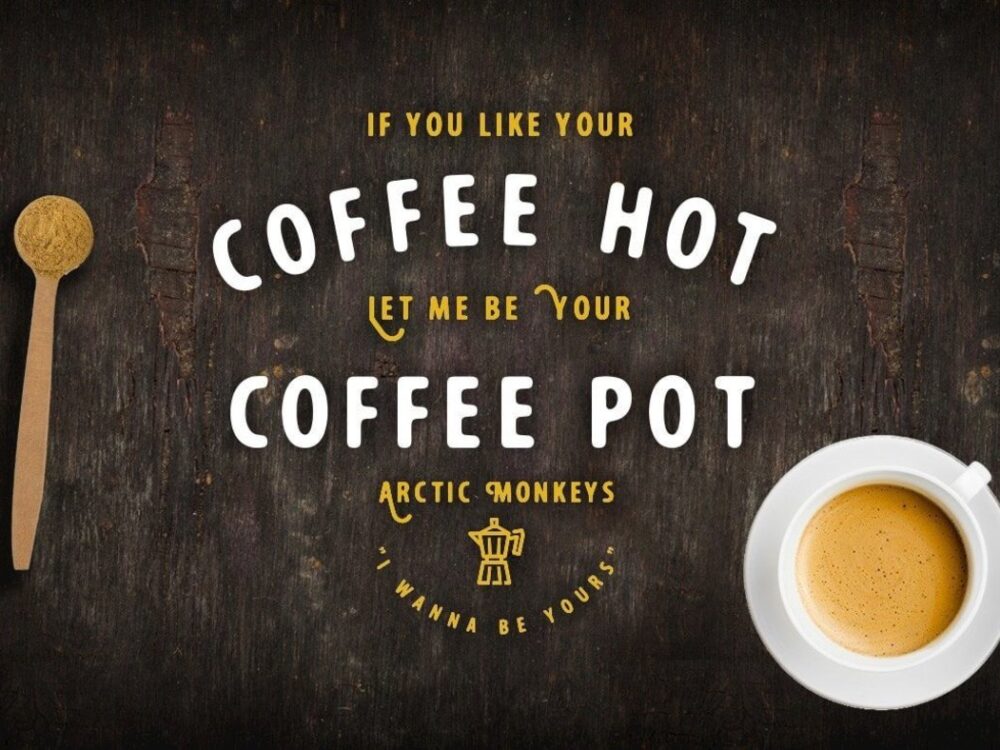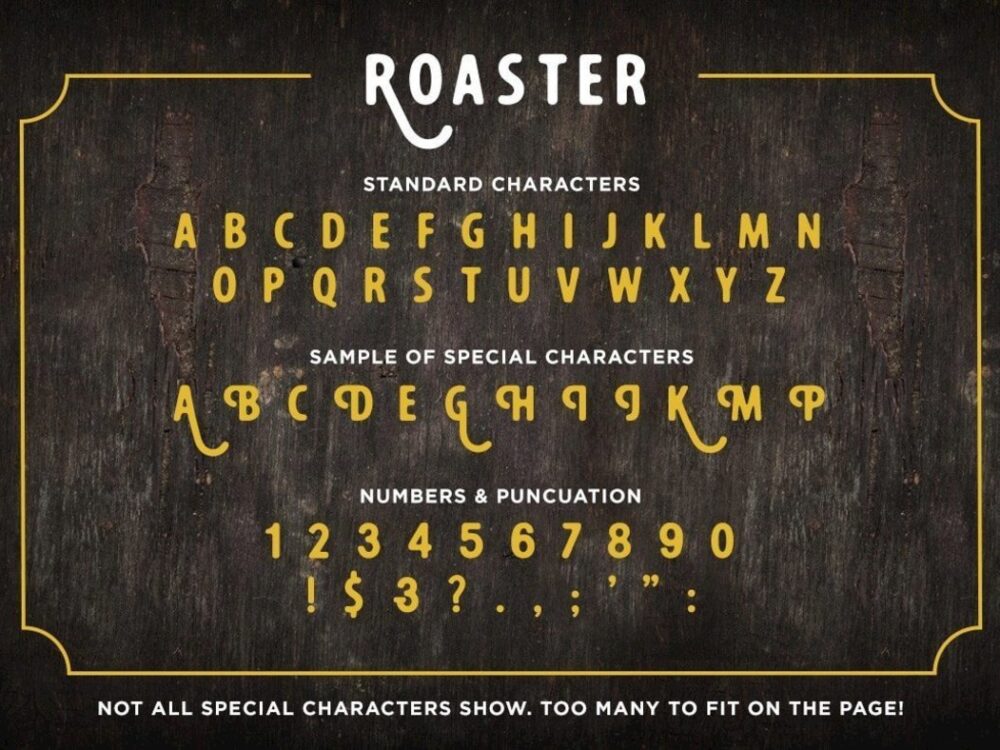
Roaster Free Font Family
Roaster Free Font Family is a mono-weight family that contains two fonts and many alternative long characters. These 2 fonts will help you create handwritten lettering quickly and easily. The font family has a rounded, handcrafted flavor with many alternatives. Perfect for branding and headings. Enjoy!